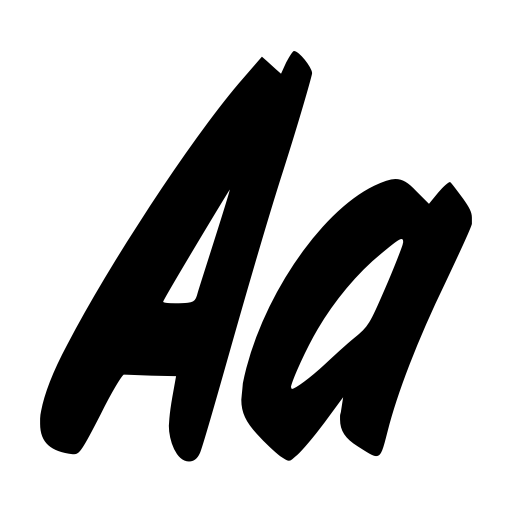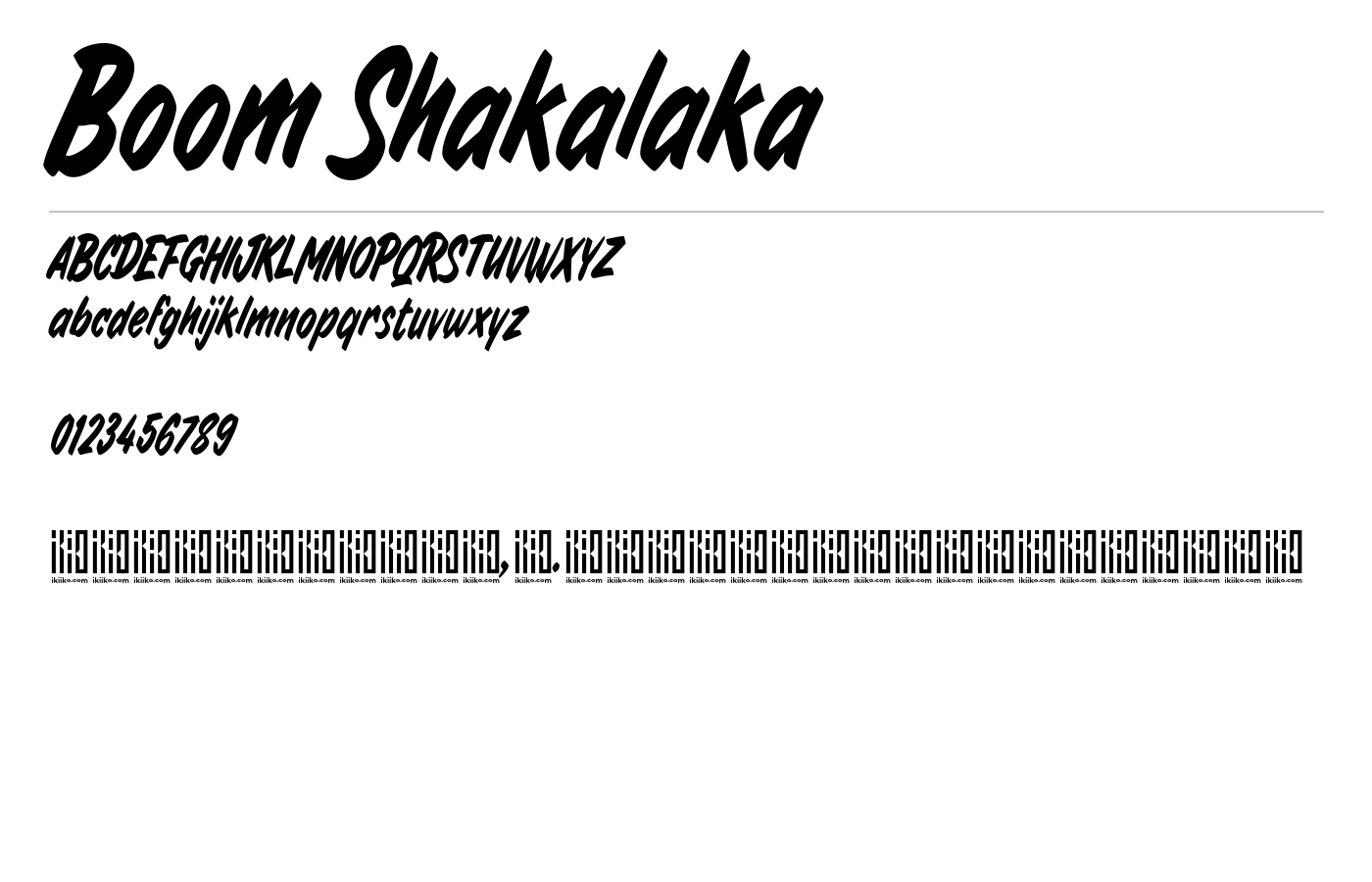
Boom Shakalaka is a bold and energetic script font with a playful, hand-painted feel. Its dynamic slant, thick strokes, and lively curves give it an informal, expressive personality, making it perfect for eye-catching headlines, logos, and branding that want to convey fun and excitement. This font works well where a vibrant, casual style is needed to grab attention and add character.
Boom Shakalaka Font
About Boom Shakalaka Font
| Font family | Boom Shakalaka Font |
| Designer | Wahyu Eka Prasetya, Andhika Pradana |